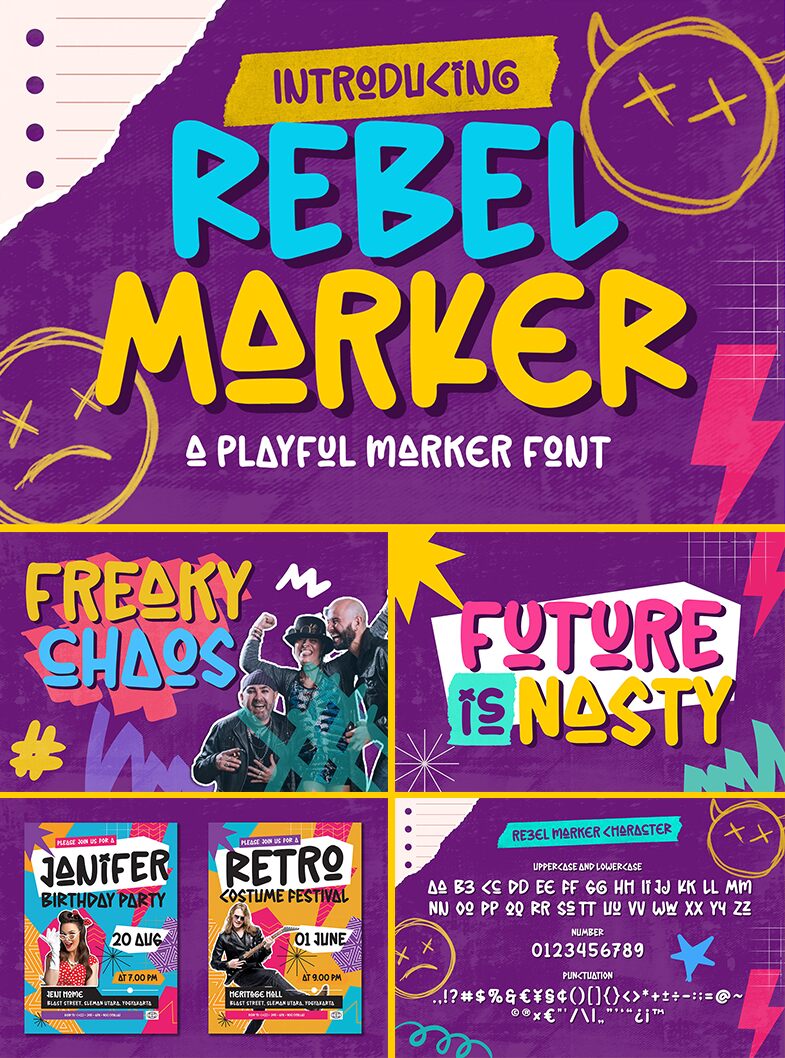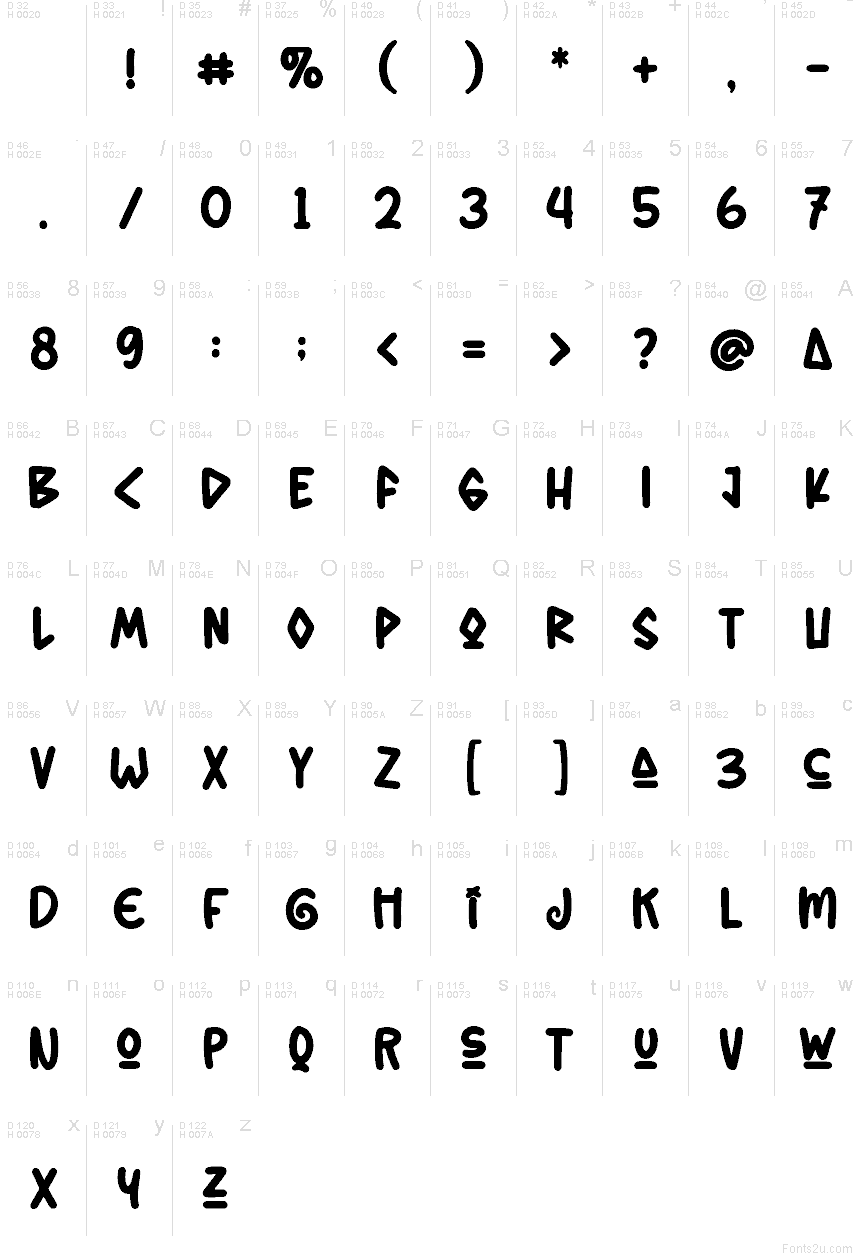
Rebel Marker Regular
Rebel Marker font by Blankids is a free brush font that looks like it was drawn straight from a chunky black marker on glossy poster paper. The letters are bold, rounded, and a little unruly, with that hand-scrawled, “do it yourself” energy that feels right at home on streetwear tags and gig flyers. The quirky triangle A and playful, bouncy rhythm give everything a loud, youthful voice without feeling messy or hard to read.
Using Rebel Marker, you can push attitude into skate logos, YouTube thumbnails, sticker packs, zines, festival posters, and bold social graphics. This free font thrives at larger sizes where its inky edges and organic curves can really show. Pair it with a clean geometric sans for small text to keep your layouts grounded while Rebel Marker shouts the headline.